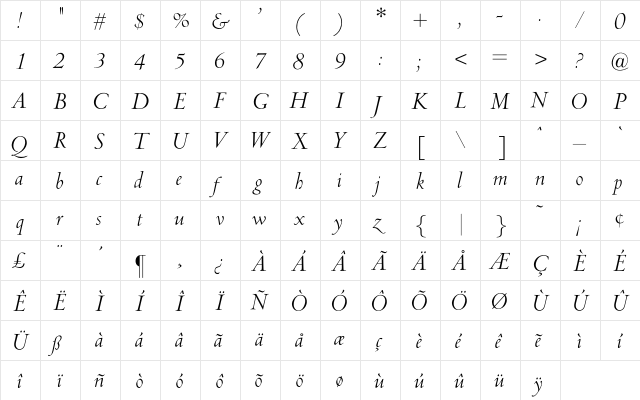
MarcelItalic Regular
Design Context for MarcelItalic Typeface
MarcelItalic is a composed and adaptable typeface that performs quietly and consistently across a wide range of design contexts. The dynamic lean of this cut emphasises speed and emphasis in any layout.
Pro Tip: Try MarcelItalic for annotation and caption copy alongside an upright companion — the contrast in angle creates a dynamic but ordered typographic system.